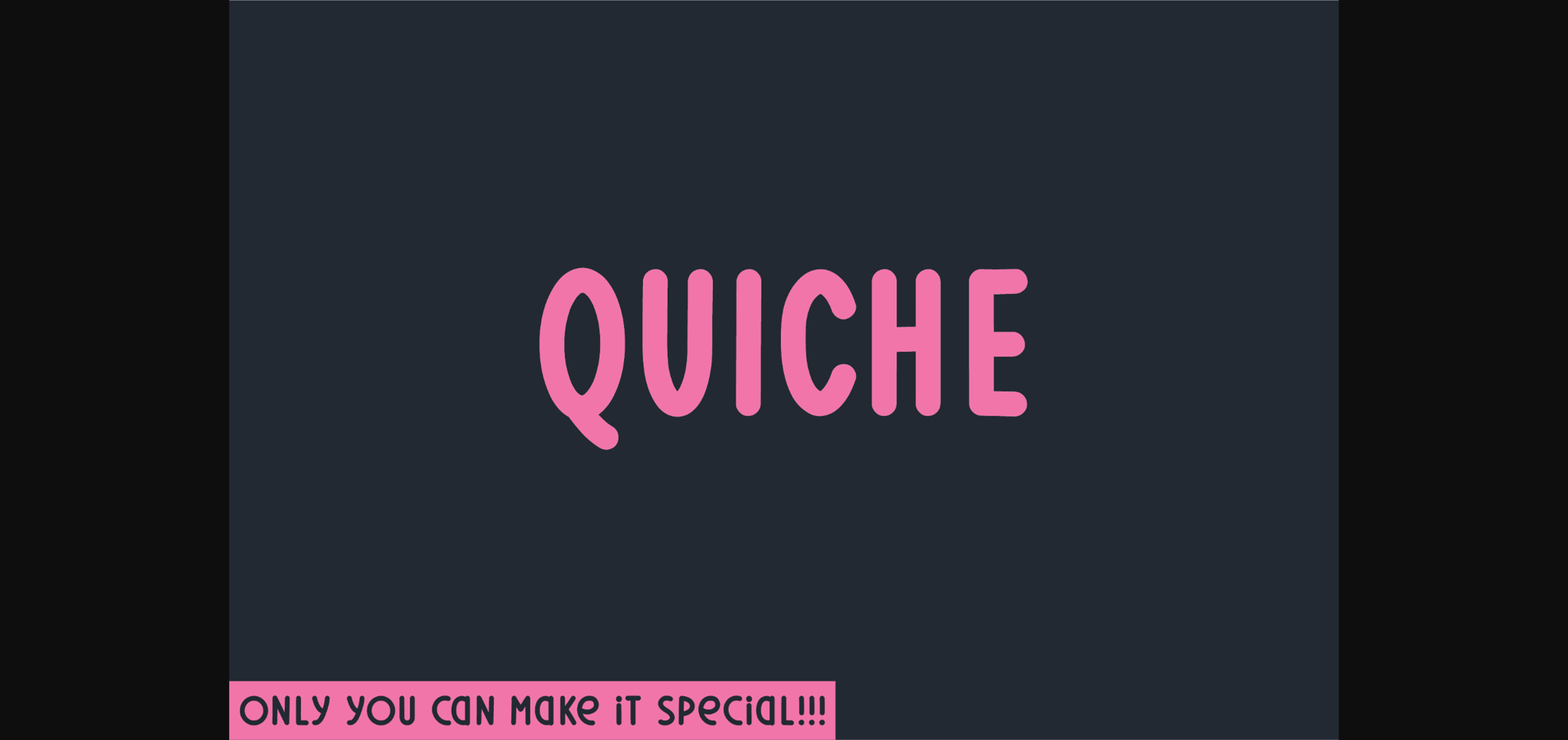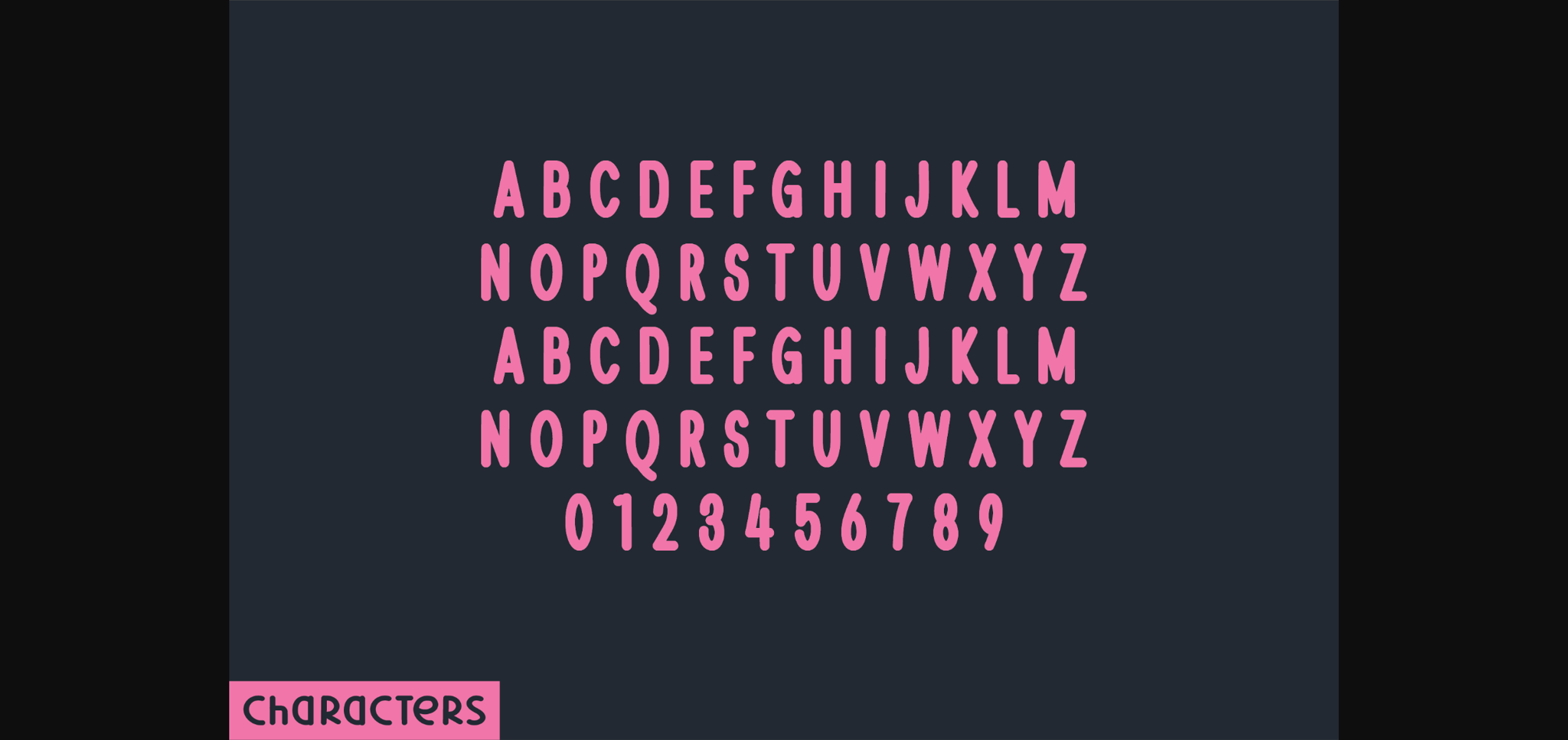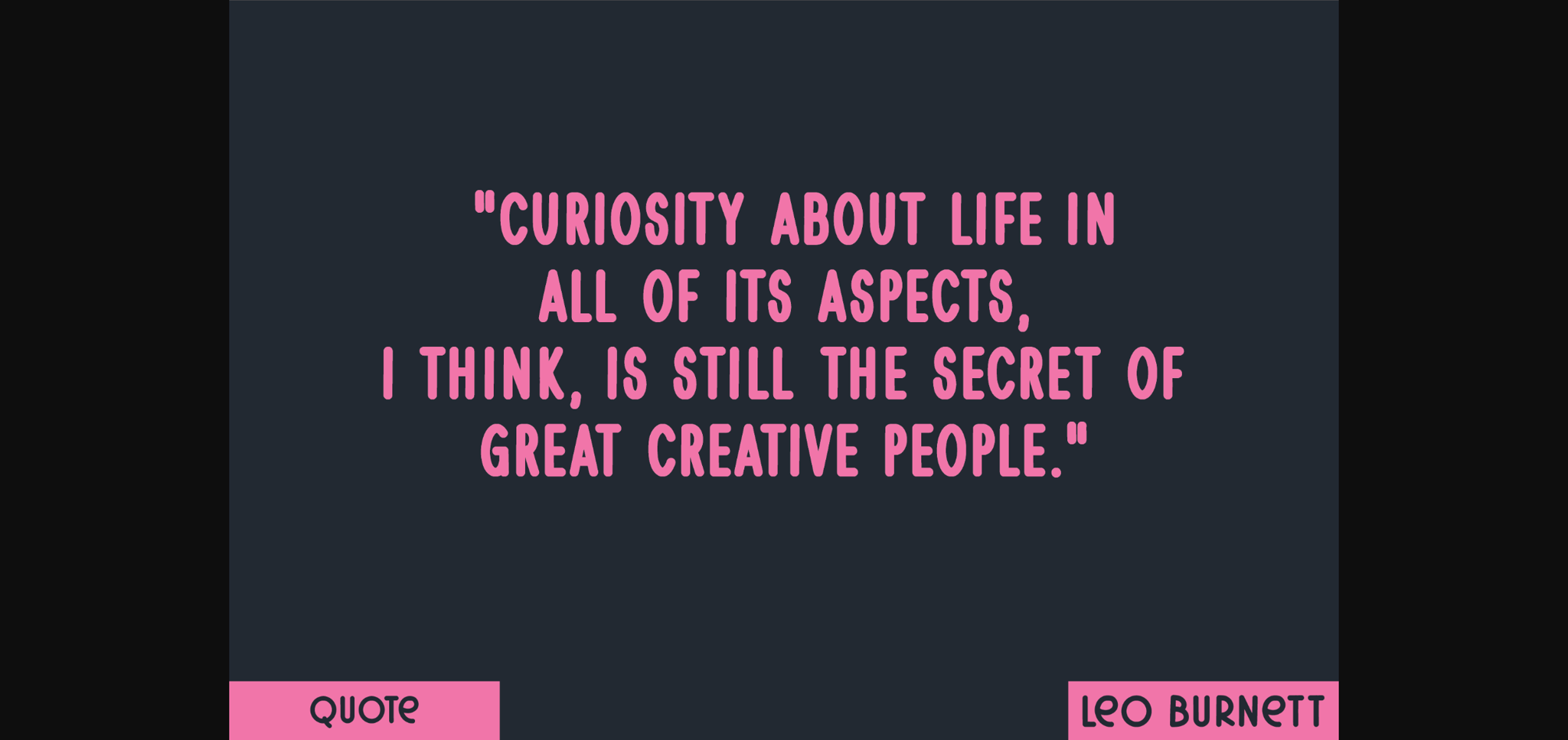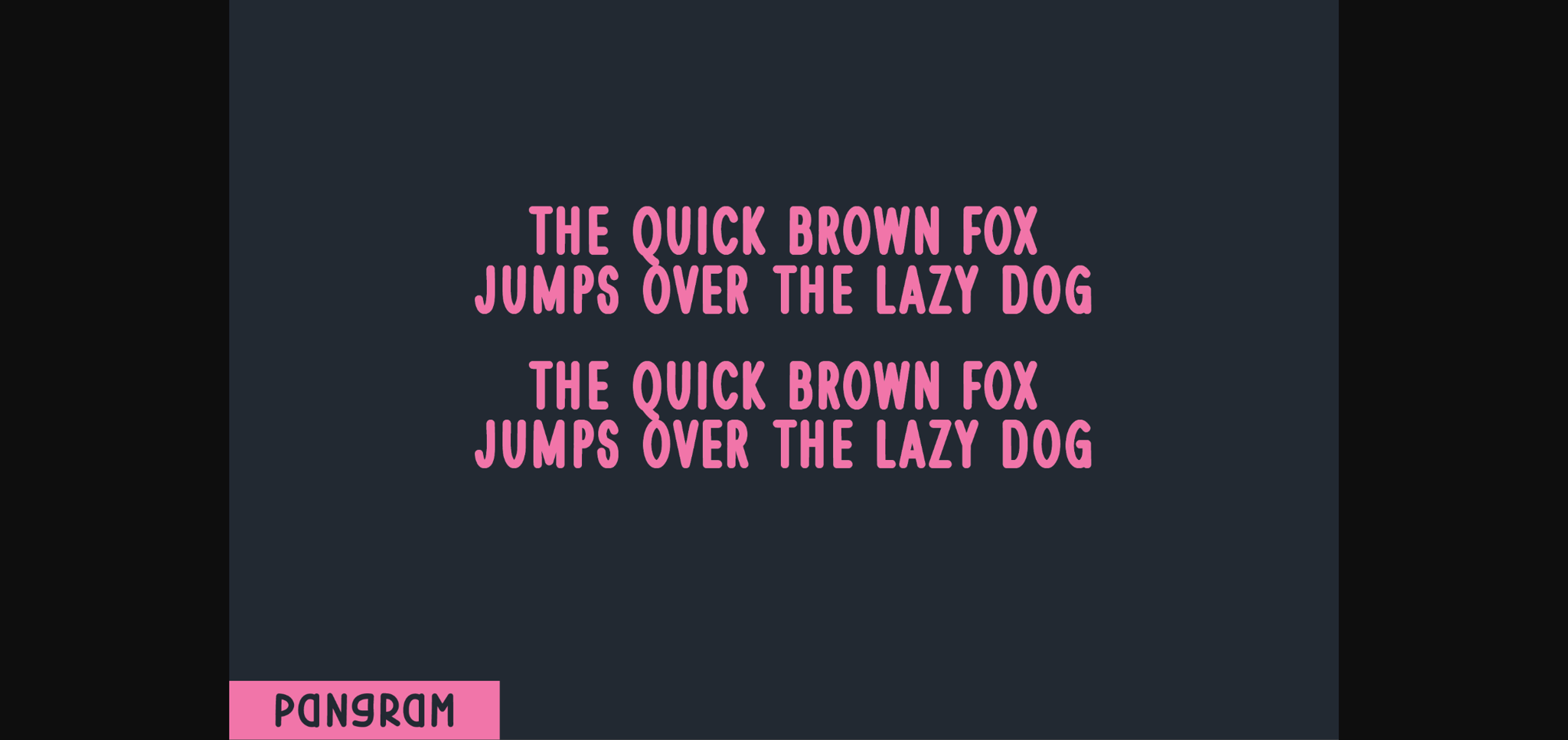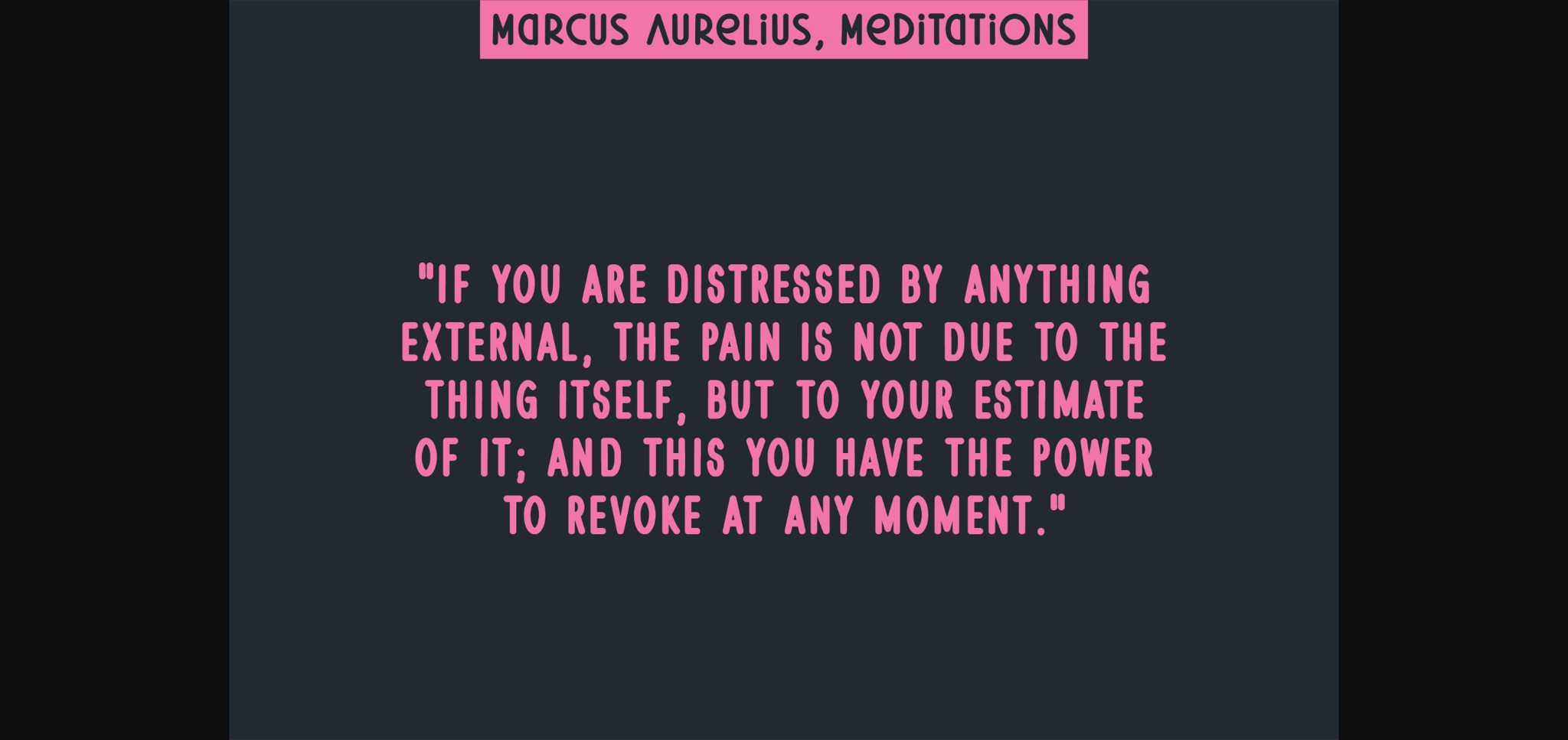
HomeSans Serif FontsQuiche Font Sans Serif Fonts Quiche Font FacebookXPinterestWhatsApp 1 of 7 ... Quiche Font Poster 2... Quiche Font Poster 3... Quiche Font Poster 4... Quiche Font Poster 5... Quiche Font Poster 6... Quiche Font Poster 7... About Quiche Font Quiche is a natural sans serif font created without changing a single node in each character’s indentation – this makes this font very interesting and unique. Perfect for quotes, notes, tees, and any product design. DOWNLOAD NOW People also explored Halloween Font Kittie Font Lemonlimes Font Thamara Story Font New in Soul Font Never Mars Font Dreams Christmas Font Astida Font Transfer Font 277 0 TagsQuicheQuiche Font Previous articleFrench Toast FontNext articleKrotea Font LEAVE A REPLY Cancel reply Comment: Please enter your comment! Name:* Please enter your name here Email:* You have entered an incorrect email address! Please enter your email address here Website: Save my name, email, and website in this browser for the next time I comment. Personal Use Free Rina Personal Use Free Read more about this font Miracles Personal Use Free Read more about this font Potato Pancakes Personal Use Free Read more about this font Cottage Personal Use Free Read more about this font BLOG Free vs Paid Fonts: Why Investing in Premium Fonts Is Worth It Free vs Paid Fonts: Why Premium Fonts Are Worth It in 2025 The debate of free vs paid fonts continues in the design world. While... The 10 Best Handwriting Fonts to Add Personality to Your Designs To increase your work productivity, choose the most readable fonts. Exploring Font Trends